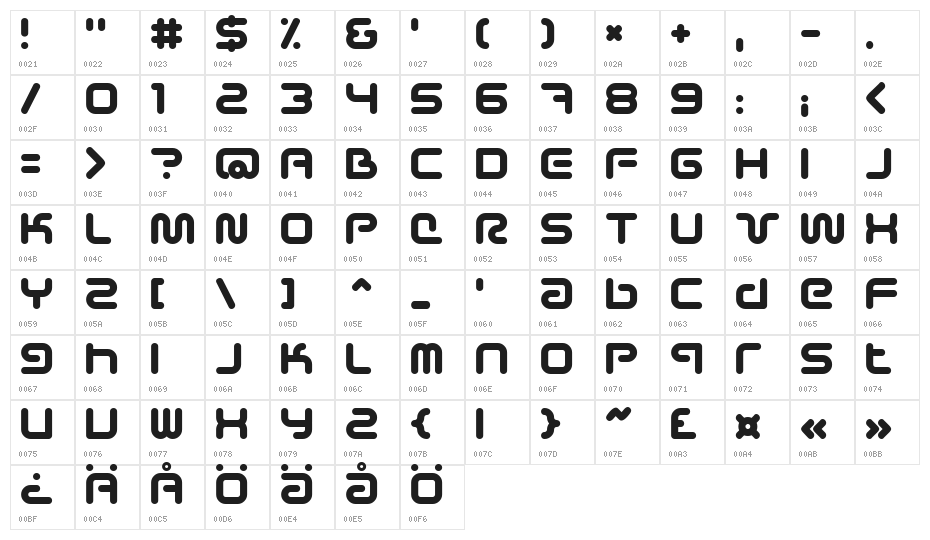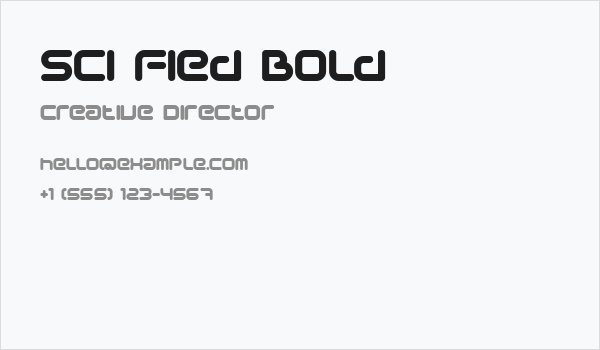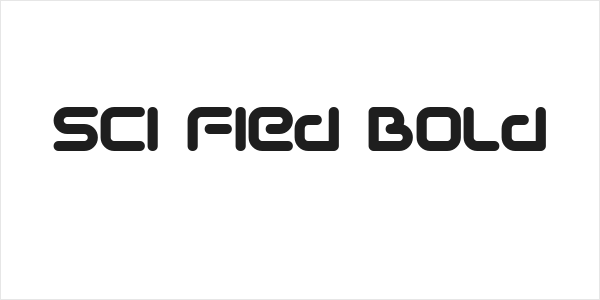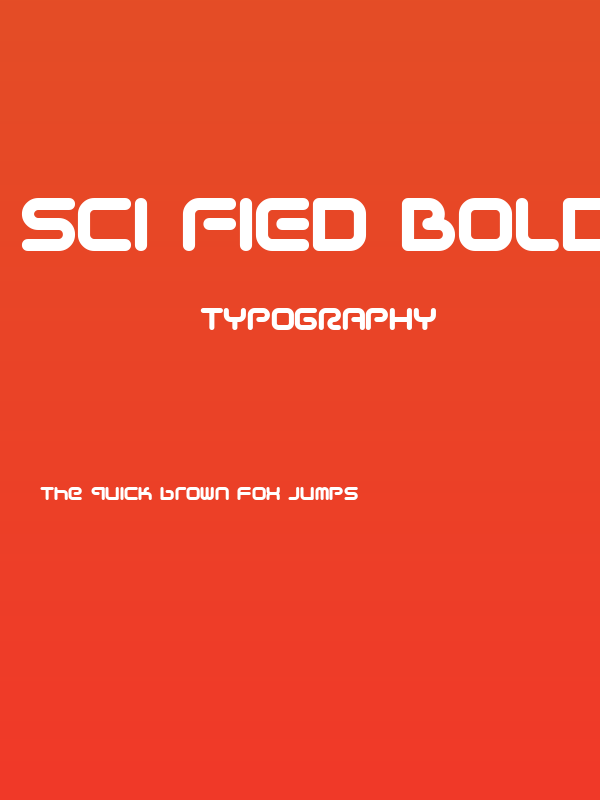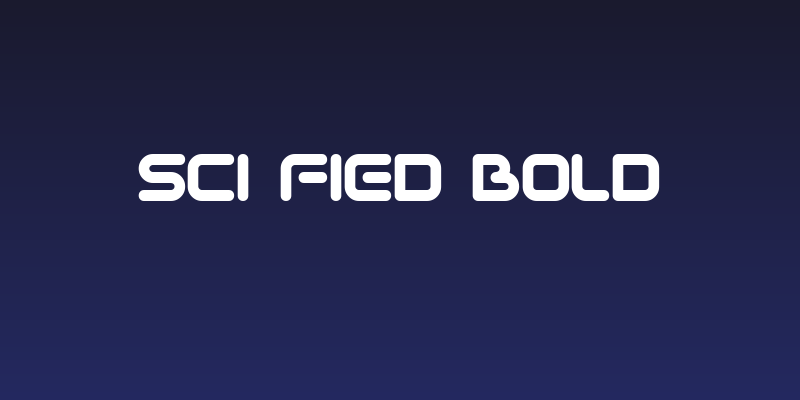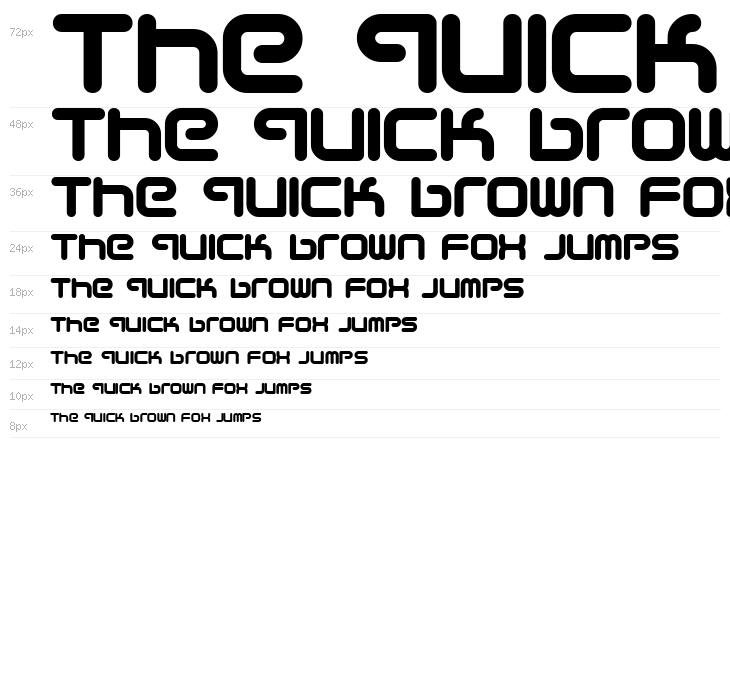
Sci Fied Bold Font
Sci Fied Bold Description
This font features a futuristic and bold design with rounded edges and a geometric structure. The characters are uniformly thick, creating a cohesive and modern appearance. The uppercase and lowercase letters maintain a consistent style, with a slight variation in height and width that adds visual interest. The numerals and special characters are designed to match the overall aesthetic, making them suitable for a variety of applications. The font's unique style is reminiscent of sci-fi themes, making it ideal for projects that require a modern and technological feel.
| Proposed Projects | Ideal for sci-fi themed projects, technology branding, video game titles, and futuristic posters. |